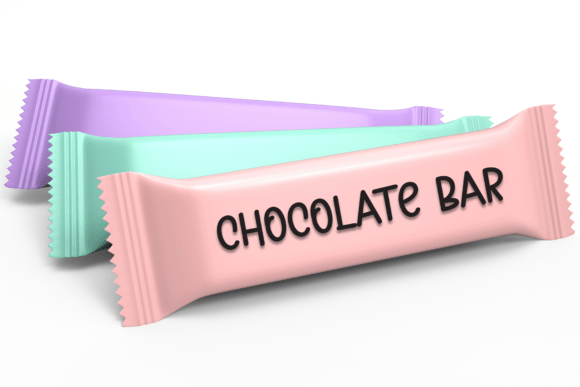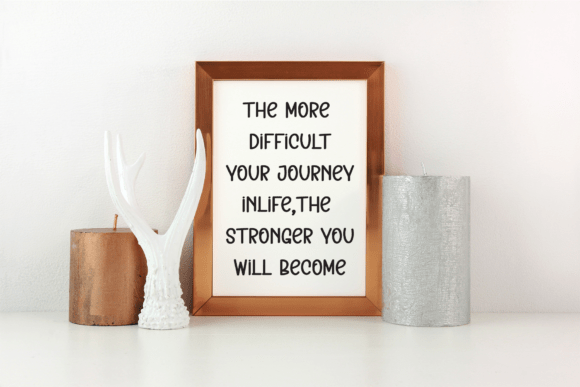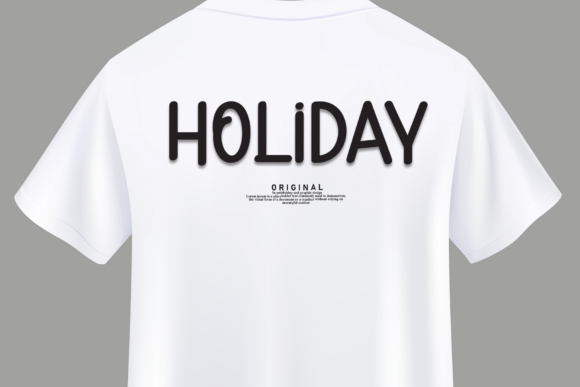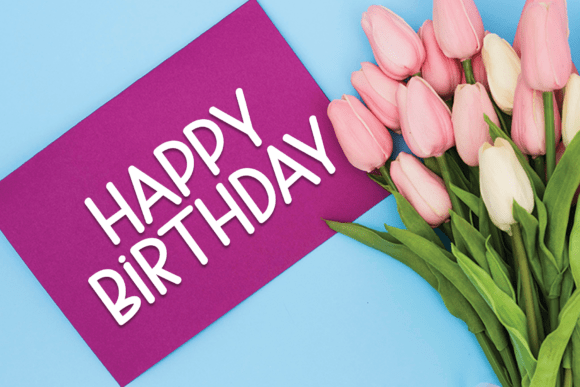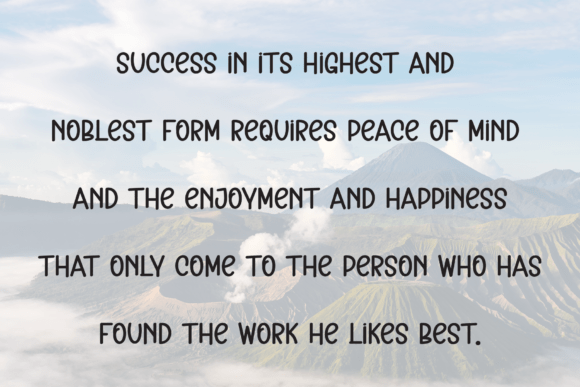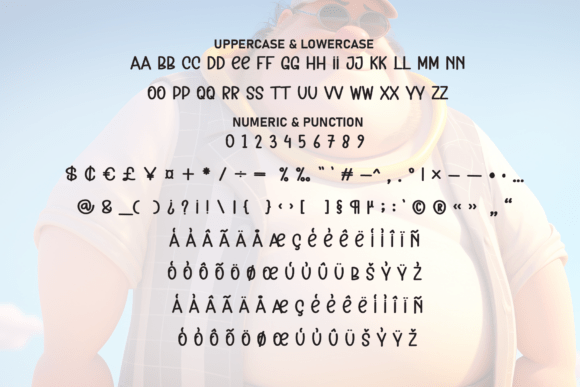
Introducing Chubby Cartoon Font: The Sweetest Addition to Your Typography
Are you tired of using the same old fonts in your design projects? Look no further! We’re excited to introduce Chubby Cartoon Font, a charming and approachable handscripted display font that’s sure to bring a smile to your face. With its delightful and amusing vibes, this font is perfect for adding a touch of fun and whimsy to your designs.
The Perfect Blend of Sweetness and Friendliness
Chubby Cartoon Font is a masterfully crafted font that exudes sweetness and friendliness in every stroke. Its handscripted design gives it a personal and approachable feel, making it ideal for use in a variety of design projects. Whether you’re penning wedding invitations, creating greeting cards, or working on a branding project, this font is sure to bring a touch of warmth and personality to your design.
What Makes Chubby Cartoon Font So Special?
So, what sets Chubby Cartoon Font apart from other fonts on the market? Here are just a few of its standout features:
- Handscripted design: Each letter is carefully crafted by hand, giving the font a unique and personal feel.
- Delightful and amusing vibes: The font’s playful design is sure to bring a smile to your face and add a touch of fun to your design.
- Adorable qualities: From its rounded edges to its cheerful letterforms, Chubby Cartoon Font is a font that’s sure to delight.
- Versatile: Whether you’re working on a wedding invitation, greeting card, or branding project, this font is sure to fit the bill.
Chubby Cartoon Font is a must-have for designers and crafters looking to add a touch of fun and whimsy to their projects. Here are just a few ways you can use this delightful font:
- Wedding invitations: Add a touch of sweetness and romance to your wedding invitations with Chubby Cartoon Font.
- Greeting cards: Create one-of-a-kind greeting cards that are sure to delight with this charming font.
- Branding projects: Use Chubby Cartoon Font to add a touch of personality to your branding projects, from logos to packaging.
- DIY projects: Whether you’re creating iron-on designs, stickers, or other DIY projects, this font is sure to add a touch of fun and whimsy.
Bringing Joy to Typography
At its core, Chubby Cartoon Font is a font that’s all about bringing joy to typography. Its delightful design and charming letterforms are sure to put a smile on your face and inspire your creativity. Whether you’re a designer, crafter, or simply someone who loves typography, this font is sure to bring a touch of happiness to your work.
Get Ready to Fall in Love with Chubby Cartoon Font
If you’re looking for a font that’s sure to capture the hearts of your audience, look no further than Chubby Cartoon Font. With its charming design, delightful vibes, and adorable qualities, this font is sure to become a go-to choice for all your design projects. So why wait? Fall in love with Chubby Cartoon Font today and start adding a touch of fun and whimsy to your designs!
In conclusion, Chubby Cartoon Font is a charming and approachable handscripted display font that’s sure to bring a touch of fun and whimsy to your design projects. With its delightful design, adorable qualities, and versatile uses, this font is a must-have for designers and crafters alike. So why wait? Try Chubby Cartoon Font today and discover the joy of typography!